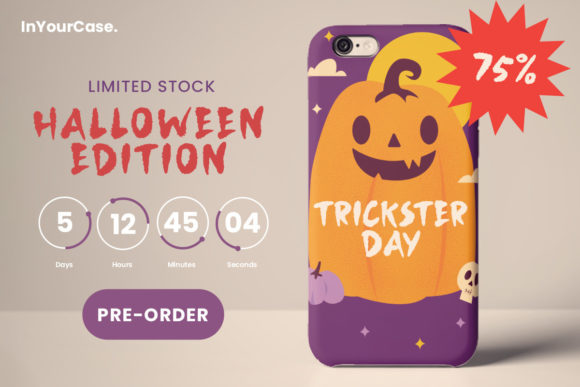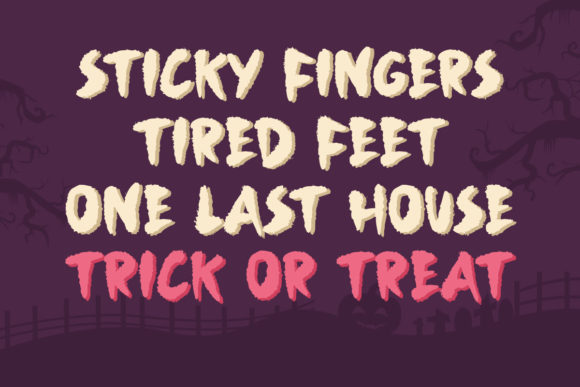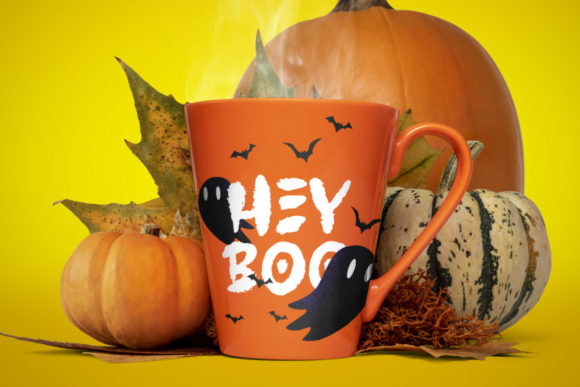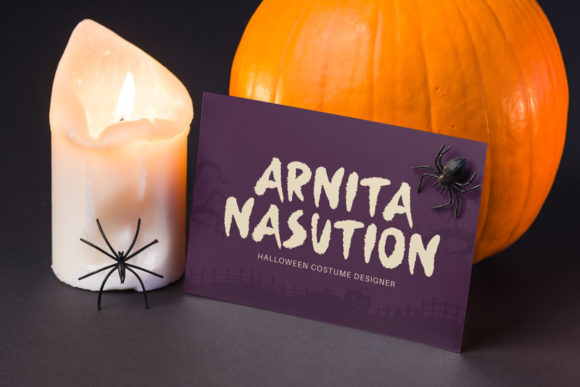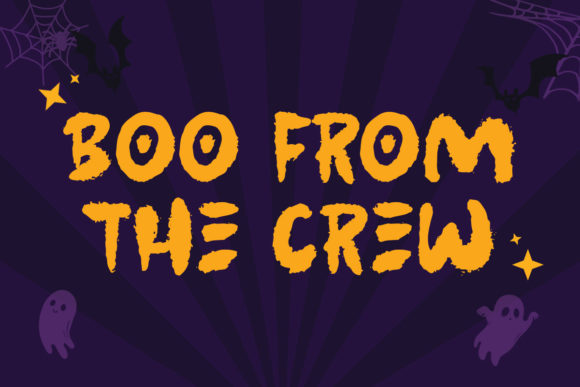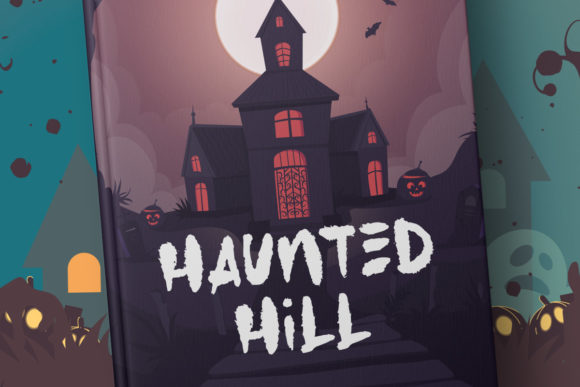
The Perfect Blend of Playfulness and Authenticity: Beast Party Font
Have you ever found yourself rummaging through your font library, searching for the perfect font to bring a design to life? You finally stumble upon that one special font that screams ‘fun’ and ‘playfulness’, and everything clicks into place. For designers, this moment is what makes the creative process so exhilarating.
Enter Beast Party Font, a cool and spooky display font that embodies the perfect blend of playfulness and authenticity. This chunky lettered font is the perfect choice for any children’s activity or school project, adding a touch of whimsy and fun to any design. By incorporating Beast Party Font into your designs, you’ll notice how it brings a level of authenticity and playfulness that’s hard to achieve with more traditional fonts.
Beast Party Font Key Features
- Font Family: Beast Party is a display font, designed for use in titles and headings.
- Font Size: The font is available in 4 different sizes: 400, 500, 600, and 700, allowing for flexibility in design.
- Resolution: The font is designed for high-resolution displays, making it suitable for use in digital and print media.
- Unique Characteristics: Beast Party features a bold, energetic design with a mix of sharp and rounded edges, giving it a distinctive look.
- Language Support: The font supports a wide range of languages, including Latin, Cyrillic, and Greek scripts.
Beast Party Font Review
Overall, I think the Beast Party Font is a fun, energetic font that’s perfect for projects that need a bold, attention-grabbing look. ✨ The font’s playful, cartoonish style is reminiscent of classic party decorations and makes it a great choice for any design that needs to scream “fun” or “celebration.”
One of the things I love about Beast Party Font is its versatility. It comes in a range of weights, from light to bold, which makes it easy to use in a variety of design scenarios. Additionally, the font includes a range of alternate characters and swashes, which add to its whimsical, hand-drawn feel. ✨
- Fun, playful style that’s perfect for party-themed designs
- Versatile, with a range of weights and alternate characters
- Easy to read, even in bold weights
- May be too over-the-top for more serious or professional designs
- Not ideal for body text or large blocks of text
- May not be suitable for designs that require a more sophisticated or elegant look
In terms of overall impression, I think the Beast Party Font is a great choice for designers who want to add a little extra fun and personality to their projects. However, it’s not a one-size-fits-all solution, and designers should carefully consider whether it’s the right fit for their specific design needs.
Beast Party Font is ideal for creating eye-catching party invitations, social media graphics, and event promotions. To get the most out of it, use bold colors and large font sizes to grab attention. You can also pair it with other fonts to create a unique and dynamic design.